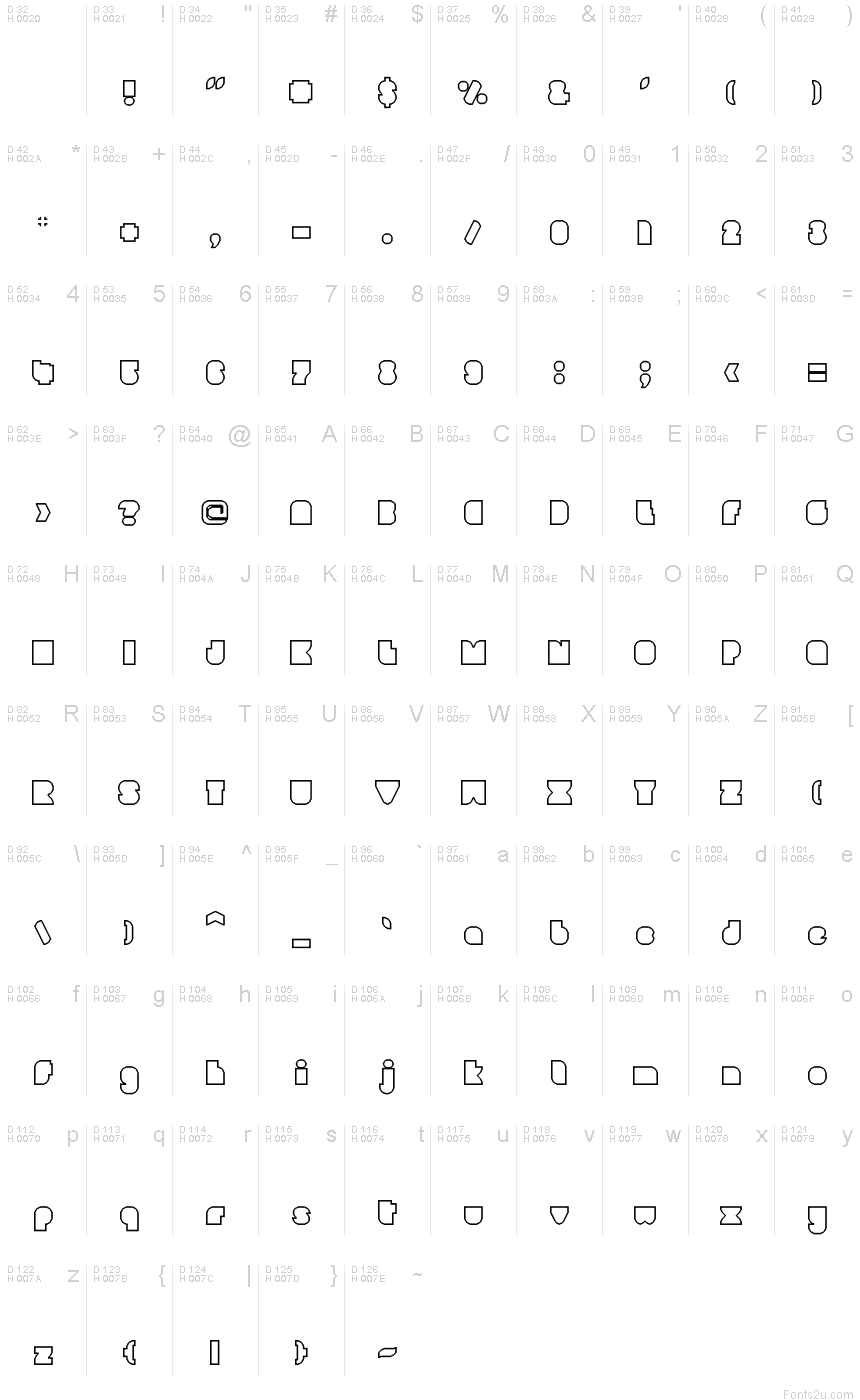
Smoveblock, designed by Lorenz Fidel Huchthausen of FSI FontShop International GmbH, is a free outlined techno display font built from sturdy, single-line contours. Its letters shift between boxy frames, broad curves, and clipped polygonal corners, producing a compact set of shapes with an early digital character. Small breaks and inward notches interrupt several outlines and keep the construction from feeling strictly mechanical.
Its outlined forms echo simple icons in game graphics and posters. That connection also suits technology packaging and music merchandise, and lets magazine feature headings become graphic companions to diagrams and interface imagery.